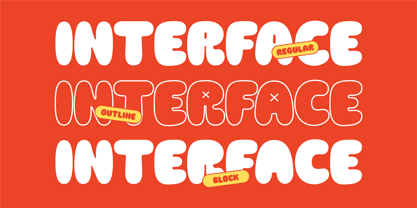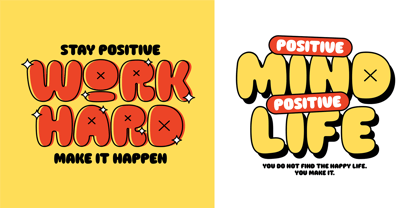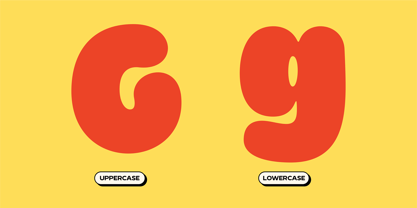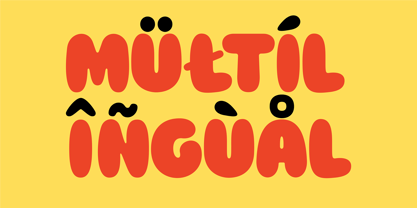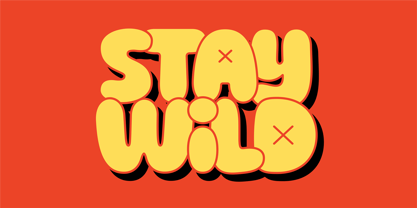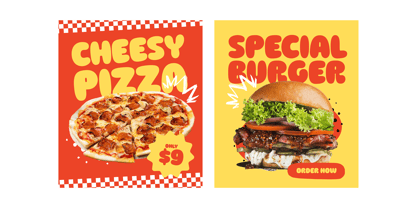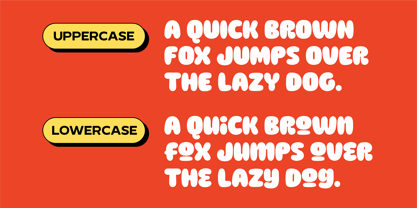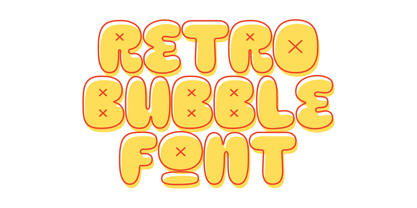
Slombe
by Graptail
The Slombe Font Family was designed by Teuku Deky Firnanda and published by Graptail. Slombe contains 3 styles and family package options. More about this family
Slombe is a playful and bold Retro Bubble Typeface that brings a vibrant throwback vibe to your design projects. Inspired by the fun and funky aesthetics of the '70s to early 2000s, Slombe features chunky, rounded letterforms that radiate personality and joy.